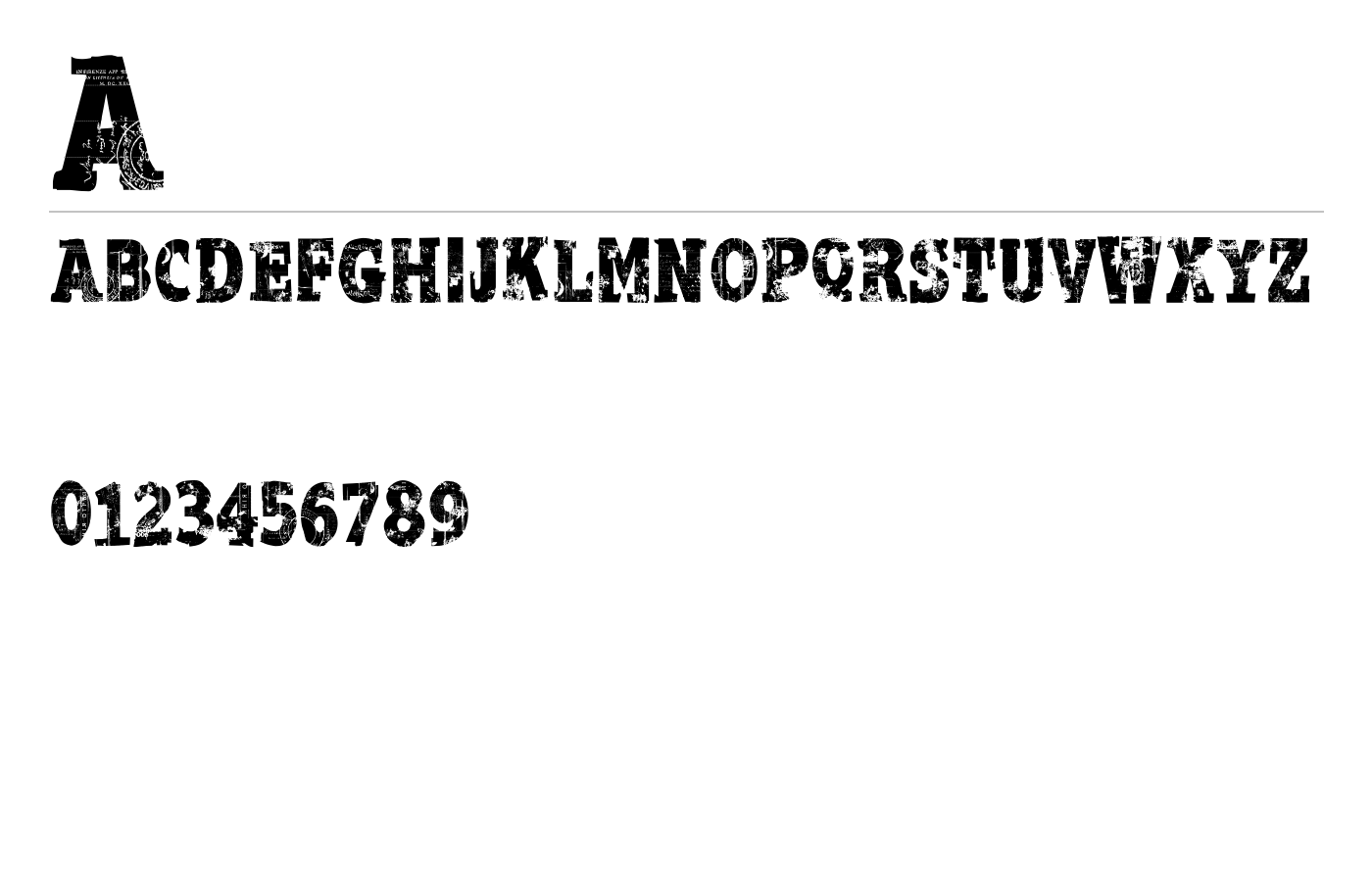
Apocalypse is a bold slab serif font with a distressed, grungy texture that gives it a rugged, worn character. Its strong, condensed letterforms combined with uneven surface details make it ideal for designs needing a vintage, rebellious, or industrial vibe, perfect for posters, logos, and edgy branding that wants to stand out.
Apocalypse Font
About Apocalypse Font
| Font family | Apocalypse Font |
| Designer | Steve Cloutier |